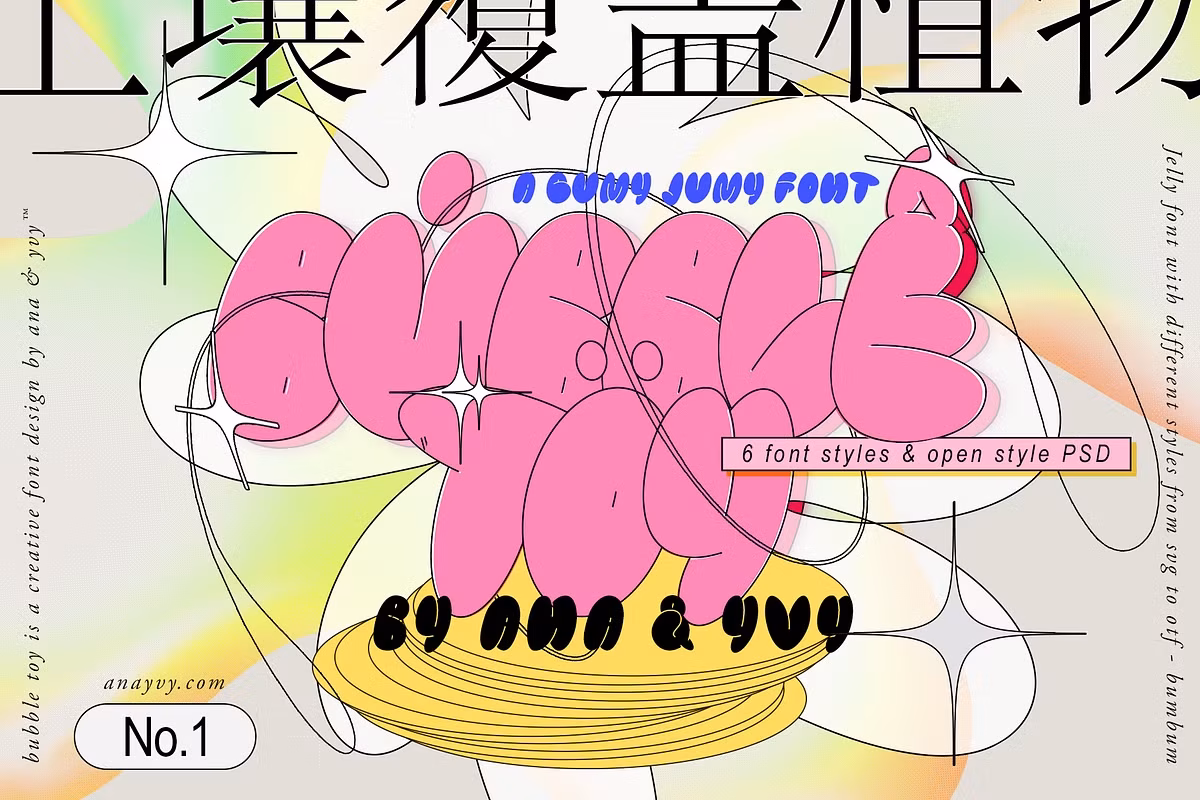
Bubble Toy | 2000s Retro Graffiti Font Free Download
Bubble Toy | 2000s Retro Graffiti Font Free Download is a bold, fun, and vibrant typeface inspired by the street art and pop culture of the early 2000s. With its bubble-like shapes, colorful vibe, and graffiti-style influence, this font is perfect for posters, album covers, branding, social media graphics, and any project that wants to evoke the playful, energetic spirit of the 2000s.
The chunky, rounded letterforms of Bubble Toy | 2000s Retro Graffiti Font Free Download make it stand out and grab attention, adding a sense of youthful fun to your designs. Whether you're working on a retro-themed project or need a bold, artistic font for your brand, this font delivers personality and style.
Bring retro flair and graffiti-inspired style to your designs with Bubble Toy | 2000s Retro Graffiti Font Free Download—perfect for creatives looking to capture the bold, fun vibe of the 2000s.